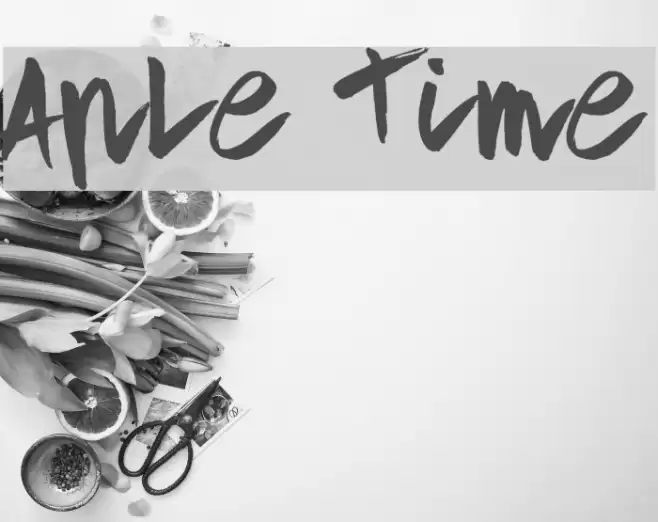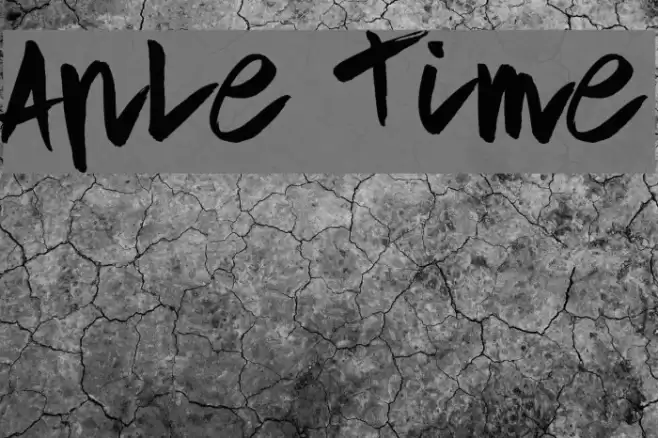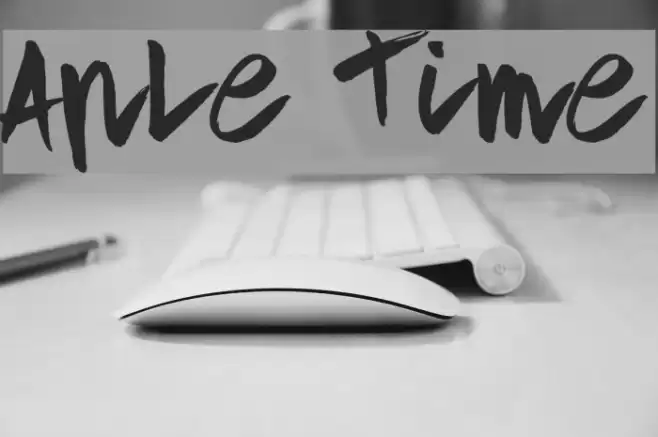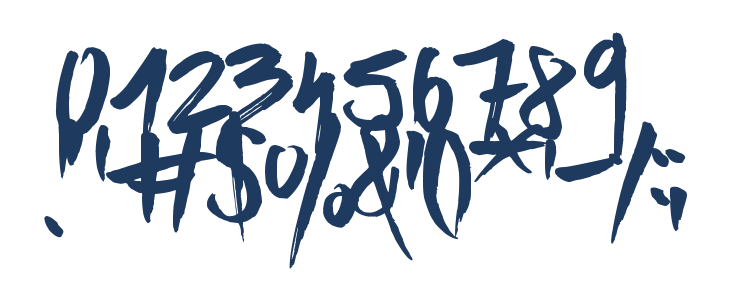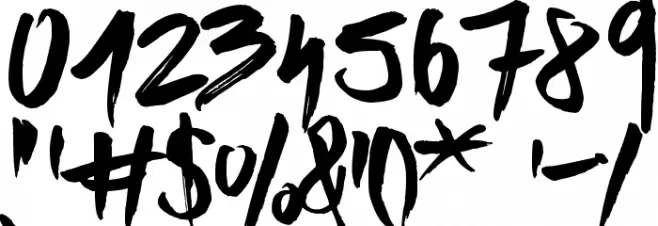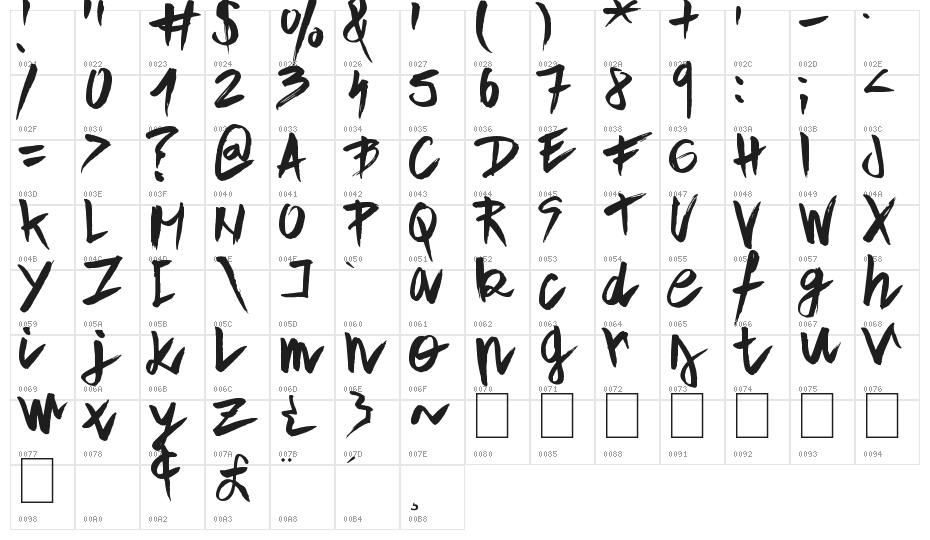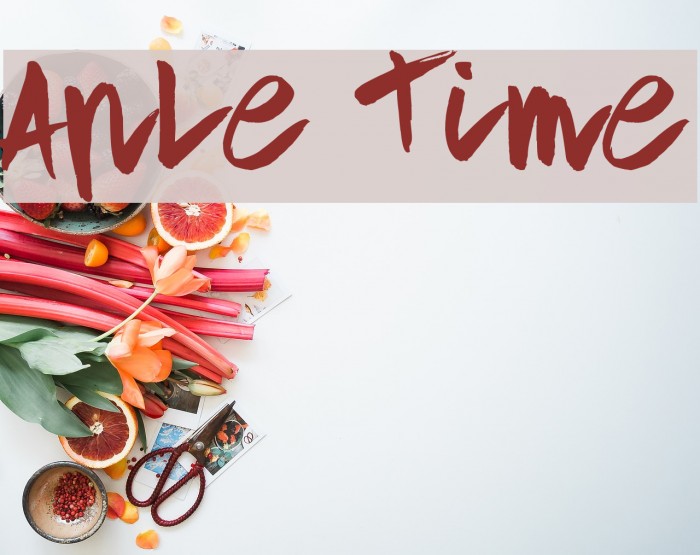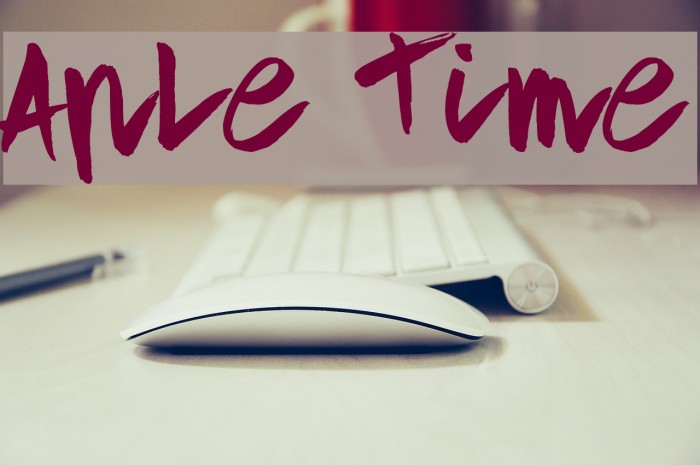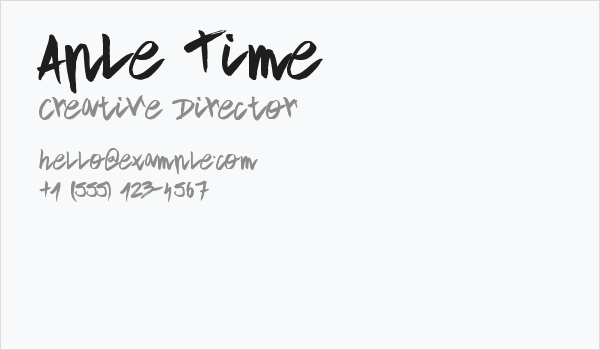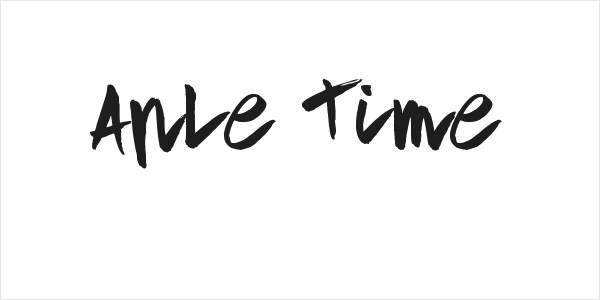
Aple Time Font
Aple Time Description
This font features a bold, expressive style with a brush-like appearance, giving it a dynamic and energetic feel. The uppercase and lowercase letters are crafted with irregular strokes, adding a sense of movement and spontaneity. The numbers and special characters maintain this lively aesthetic, making the font suitable for creative and artistic projects. The strokes vary in thickness, creating a high contrast that enhances its visual impact. The overall design is modern and decorative, perfect for grabbing attention.
A bold, brush-style font with high contrast and dynamic strokes from Uncategorized fonts.
- Proposed Projects: Ideal for posters, album covers, branding, and any project requiring a bold, artistic touch.